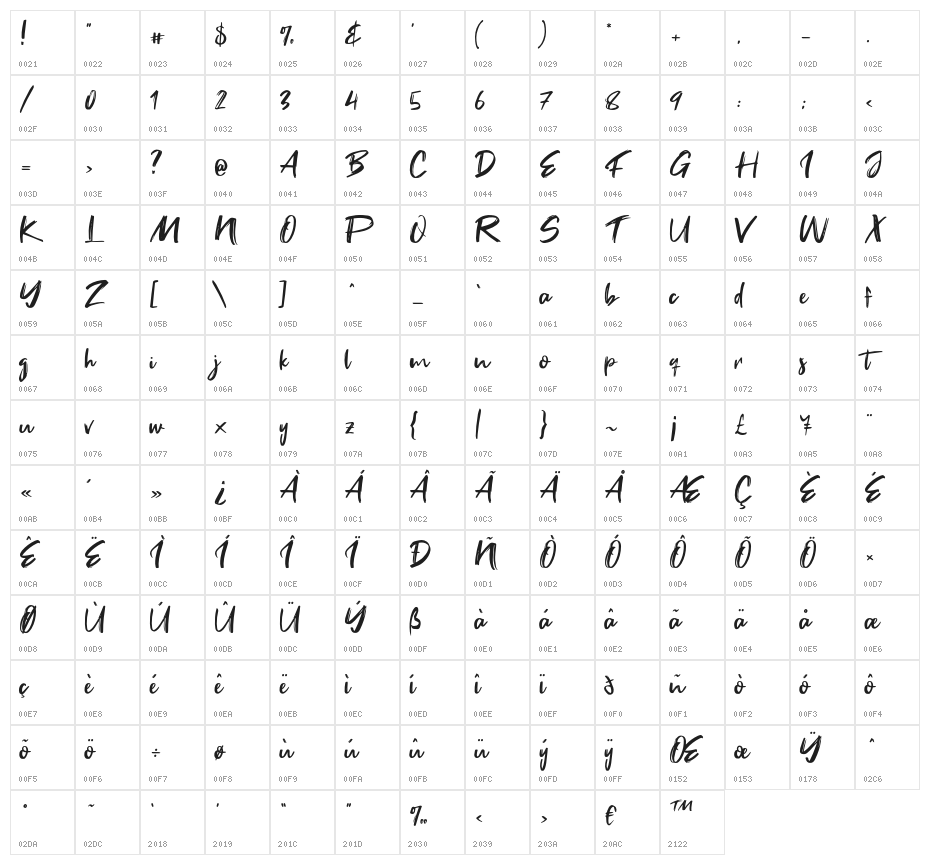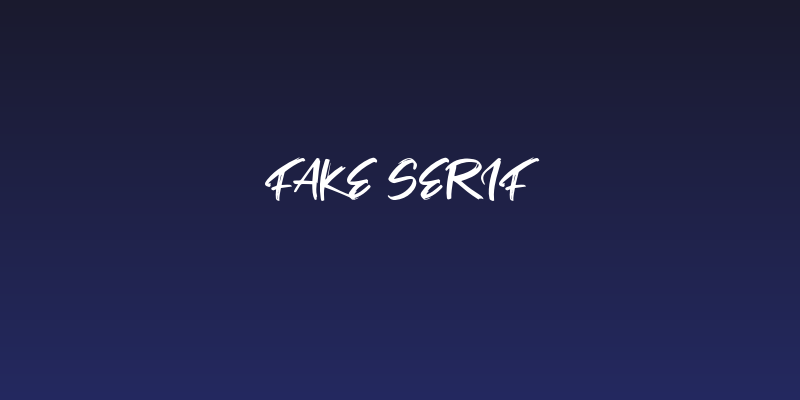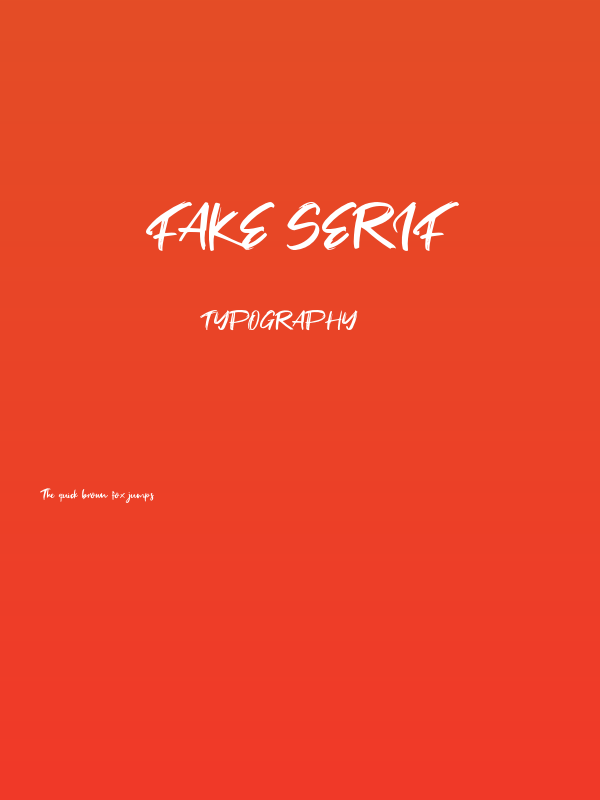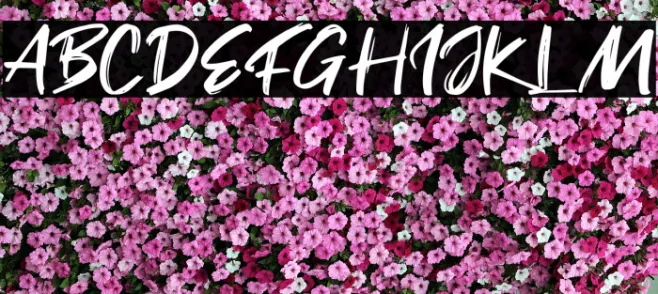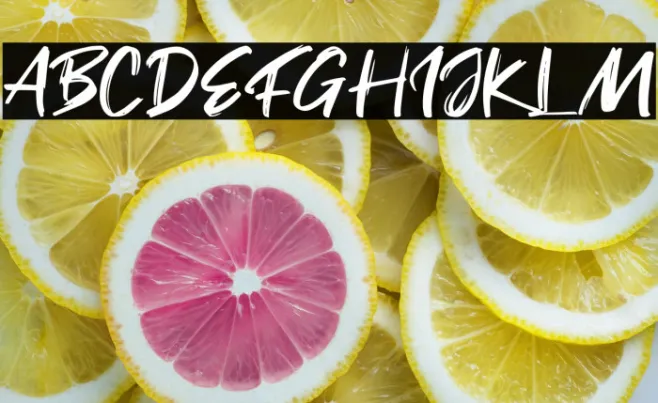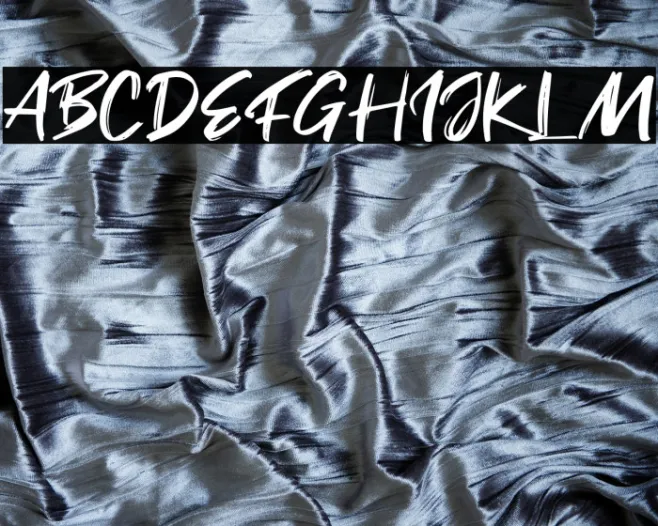
Fake Serif Font
Fake Serif Description
This font features a dynamic and expressive style, characterized by its brush-like strokes and fluid movement. The uppercase letters exhibit a bold and energetic flair, with varying stroke widths that create a sense of rhythm and spontaneity. The lowercase letters maintain this lively aesthetic, offering a more casual and approachable feel. The numerals are consistent with the overall style, providing a cohesive look across all characters. Special characters are designed with the same attention to detail, ensuring versatility in various design contexts. The font's unique personality makes it ideal for projects that require a touch of creativity and individuality.
| Proposed Projects | Ideal for branding, posters, social media graphics, and creative projects that require a bold and artistic touch. |